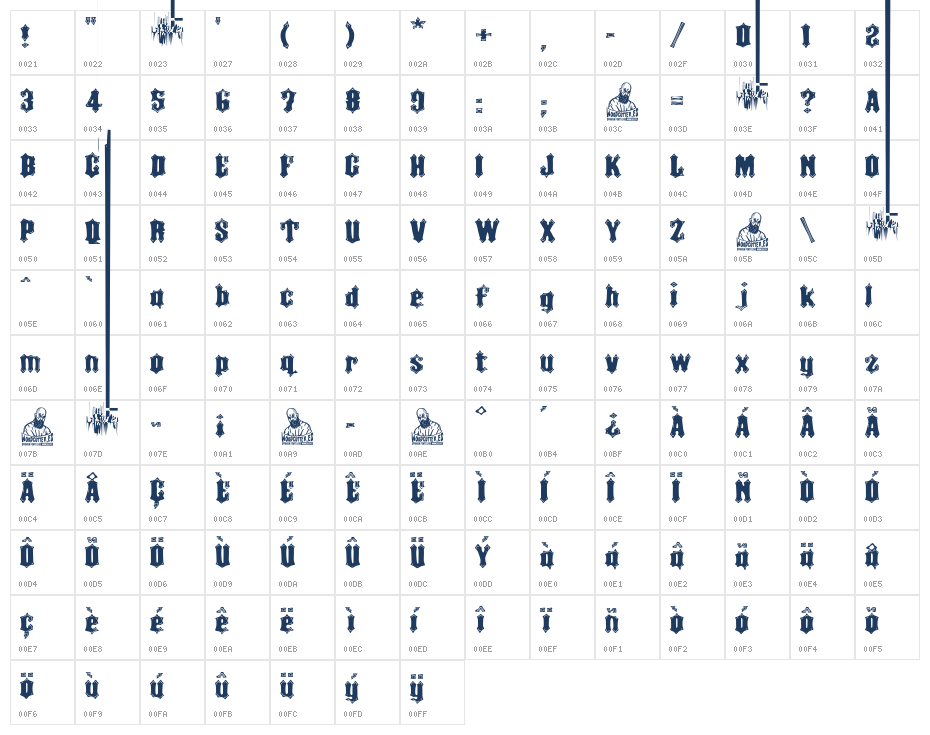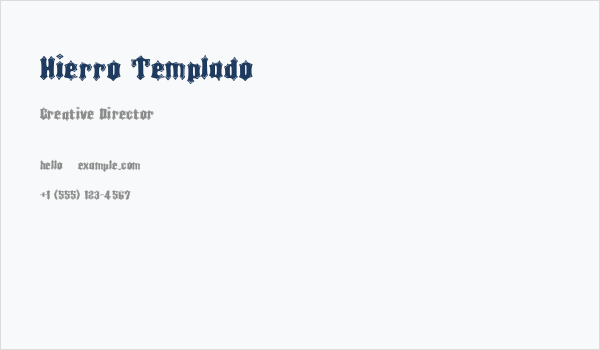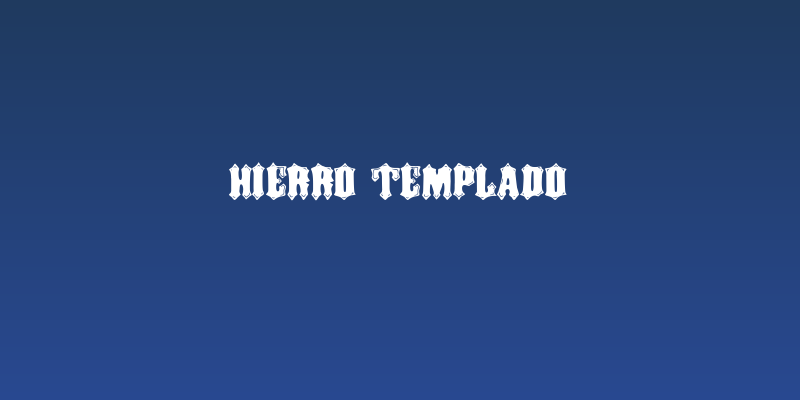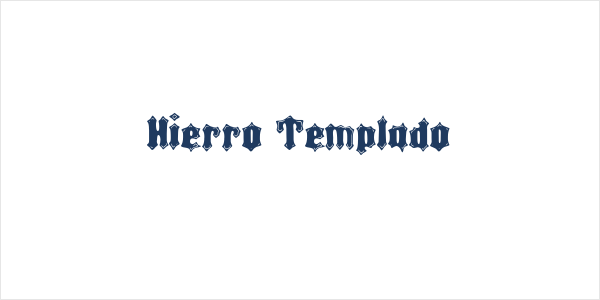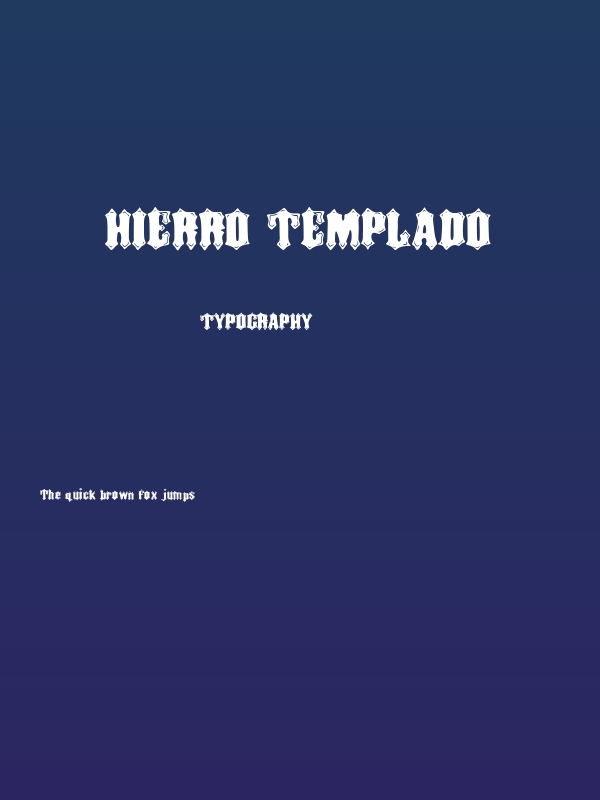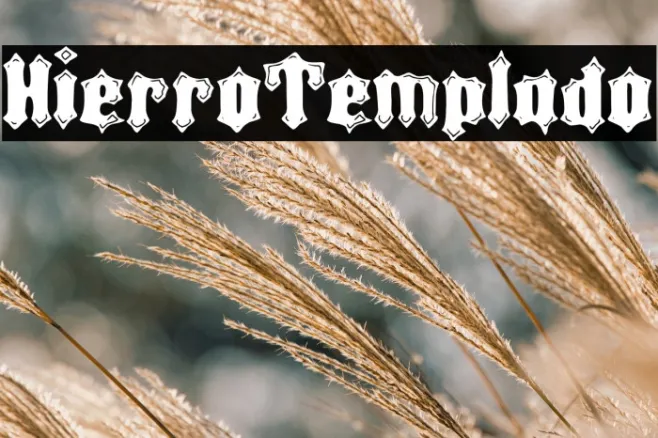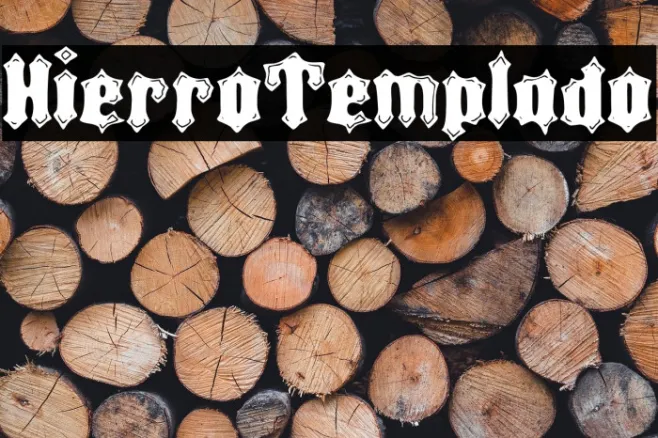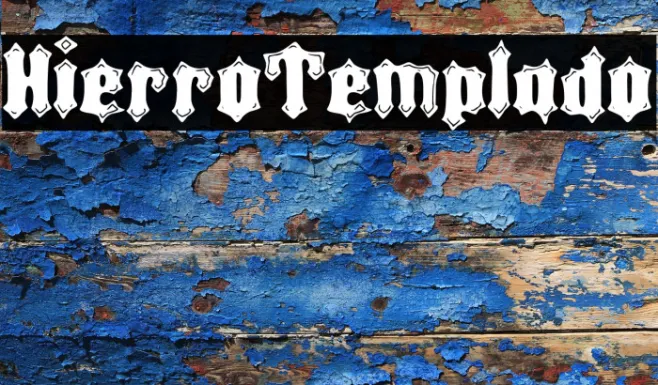
Hierro Templado Font
Hierro Templado Description
A decorative, Gothic-style blackletter font with ornate, sharp-edged characters and a bold appearance.
| Overall Style | Gothic, Vintage, Medieval |
| Use Case | Headlines, Logos, Posters, Decorative text |
| Author | Fonts by Gracetypestudio |